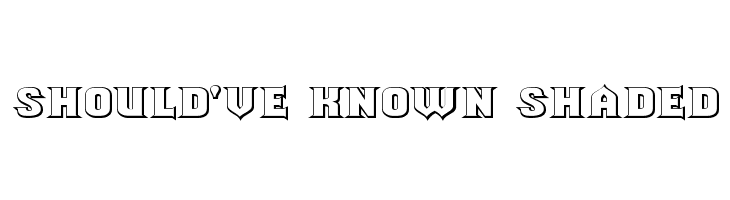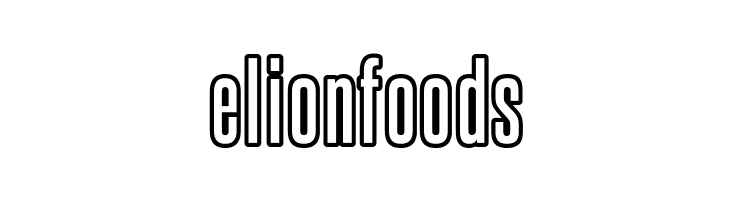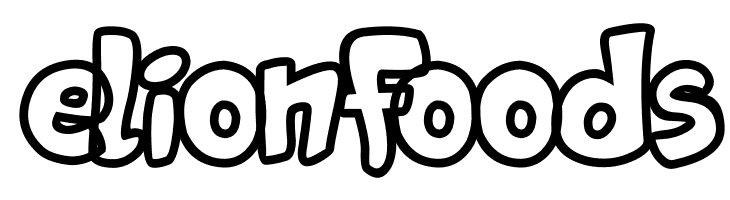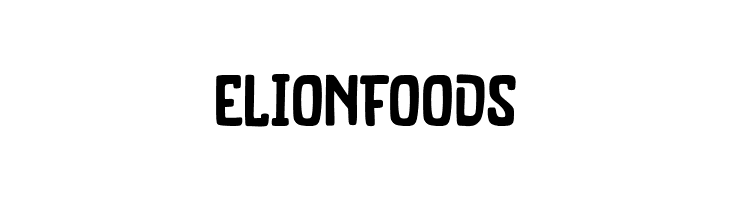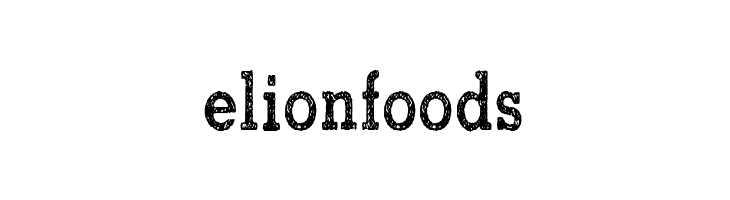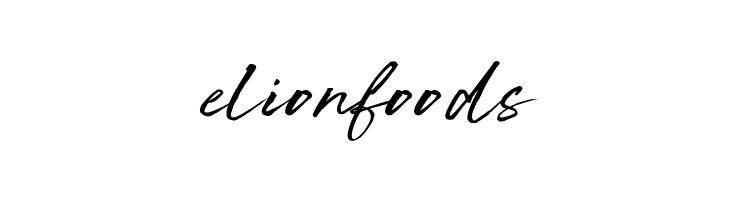
• ShophiaScript
An elegant, flowing script font with interconnected characters and a classic style.
• BabyShopia
A graceful script font with flowing, cursive strokes and elegant loops.
• Philoshopy
An elegant, high-contrast script font with ornate curves and flourishes.
• Philoshopy-Italic
An elegant, high-contrast italic script font with flowing lines.
• I shot the Serif
A modern, geometric sans-serif font with uniform strokes and high legibility.
• Reshonta
A graceful, handwritten script font with elegant, flowing characters.
• ShouldveKnown-Regular
A bold, angular font with a modern yet vintage feel.
• SteelfishOutline-Regular
A bold, outlined font with a modern and striking appearance.
• NulshockRg-Bold
A bold, futuristic font with geometric and angular design elements.
• Candyshop Regular
A playful, bubble-like font with bold, rounded characters.
• Bringshoot
A dynamic and expressive handwritten font with fluid strokes.
• Bates Shower
A bold, jagged font with a raw, brush-like style.
• Abrushow
A bold, brush-style font with dynamic and expressive strokes.
• Bubble Shooter
A playful, bold font with a bubble-like, glossy appearance.
• DuchessHortons
A flowing, cursive script font with elegant, sweeping strokes.
• Candy Shop
A playful, bold font with rounded, cartoonish letters and a whimsical style.
• Horseshoes and Lemonade
• Flower Shop Regular
A whimsical, decorative script font with playful curls and heart-like embellishments.
• Vlakshore Free Regular
A bold, rounded font with a slightly condensed and friendly appearance.
• North Shore Personal Use Regular
A bold, textured font with a vintage, distressed style.
• Short Circuit
A dynamic, fluid script font with elegant, flowing strokes.